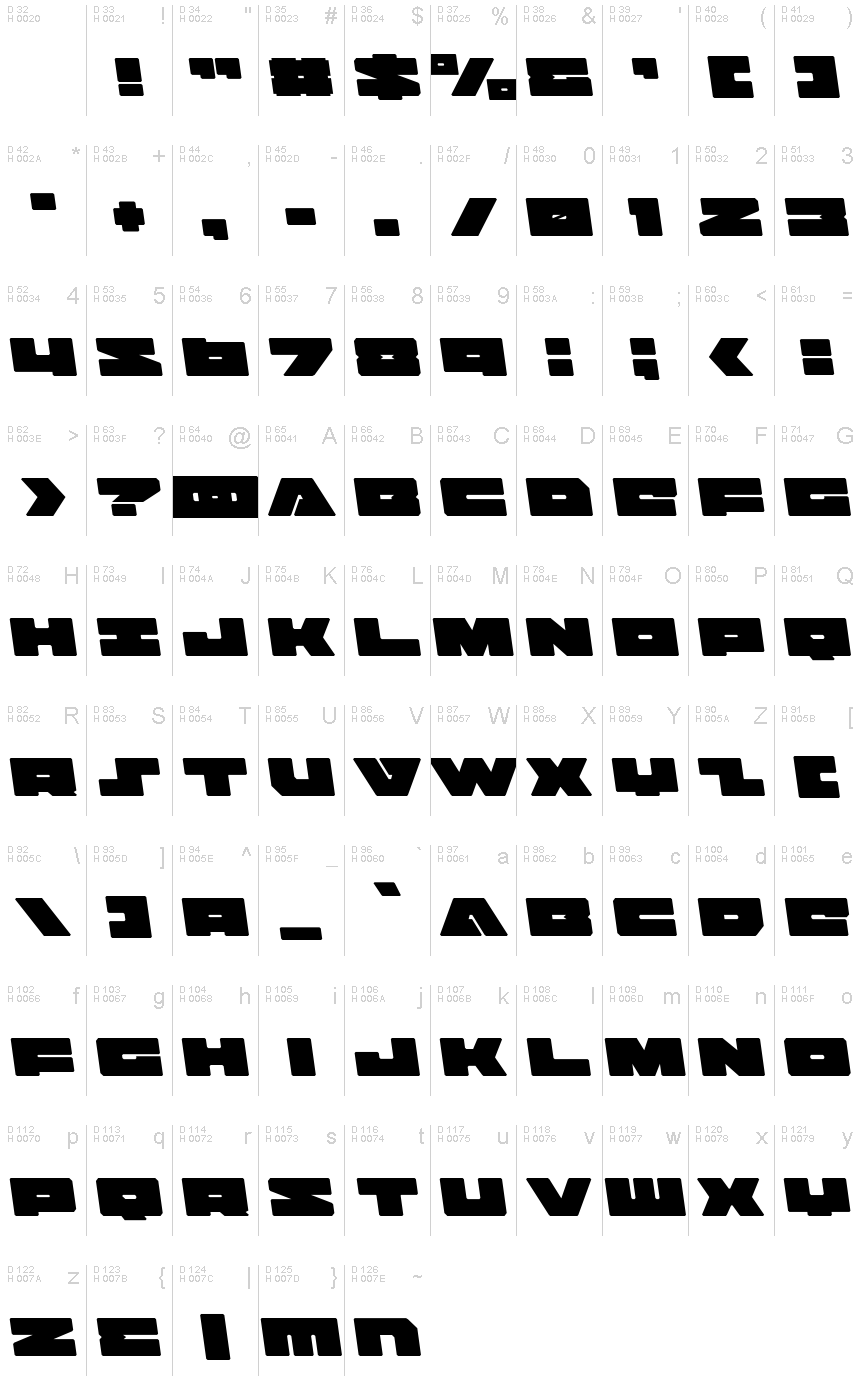
Bad Axe Semi-Leftalic
Bad Axe Semi-Leftalic stands out with its strikingly futuristic aesthetic, exuding a bold and dynamic presence. The font’s generous breadth enhances its visual impact, making each letter feel robust and commanding. Its design merges sharp angles with smooth lines, creating a sense of motion that captivates the eye.
Perfect for projects that require an edgy and modern touch, Bad Axe Semi-Leftalic works brilliantly in branding, gaming graphics, or sci-fi themed layouts where strong visuals are paramount. Whether it graces a logo or headlines in digital media, this font elevates any design with its distinctive flair and formidable style, ensuring your message demands attention and leaves a lasting impression.